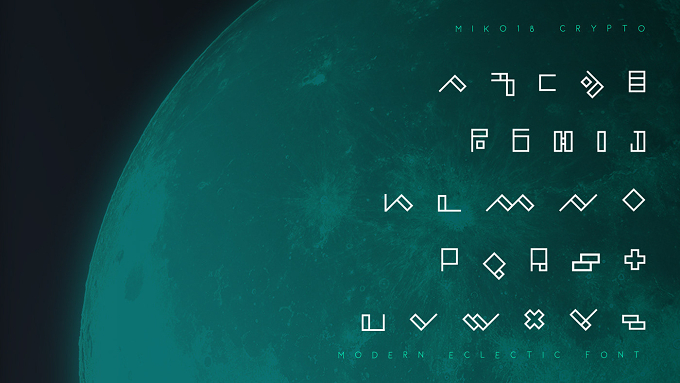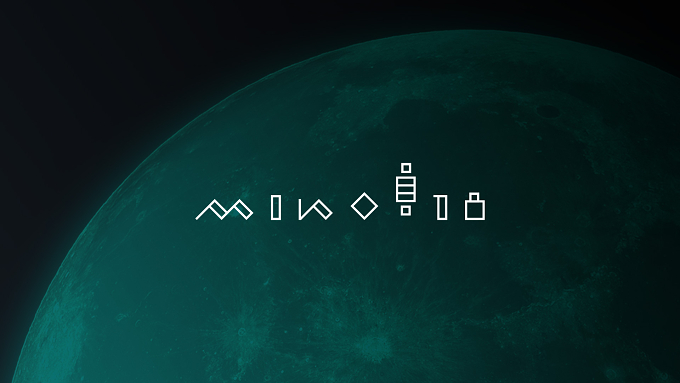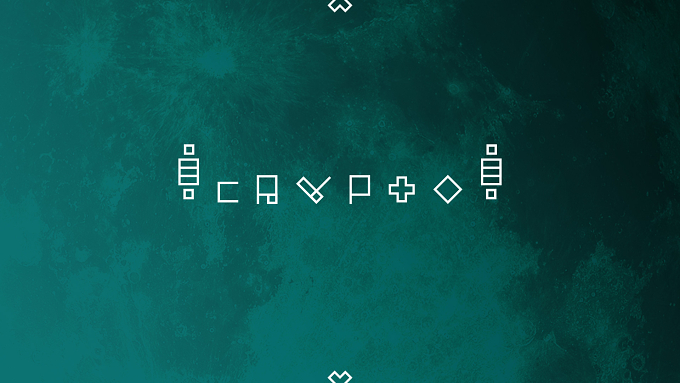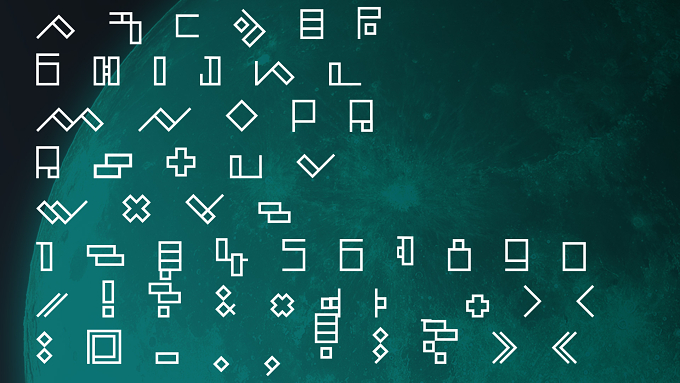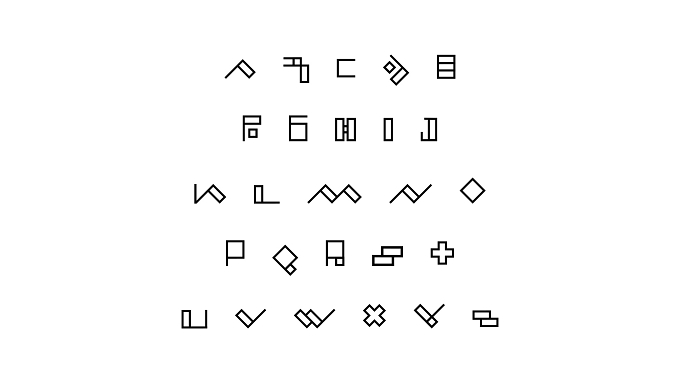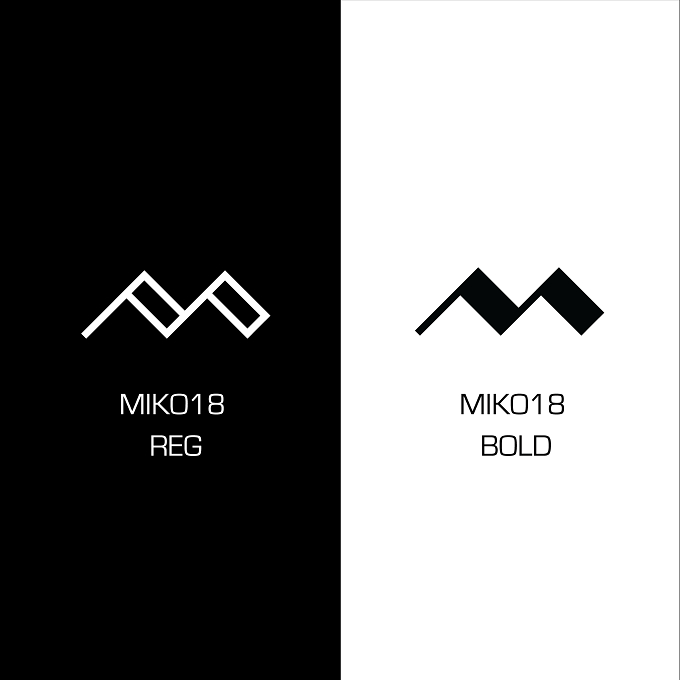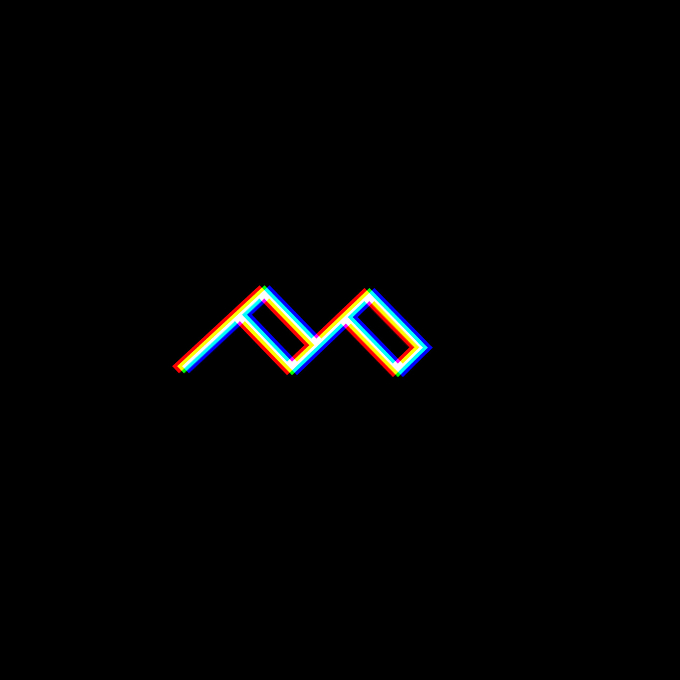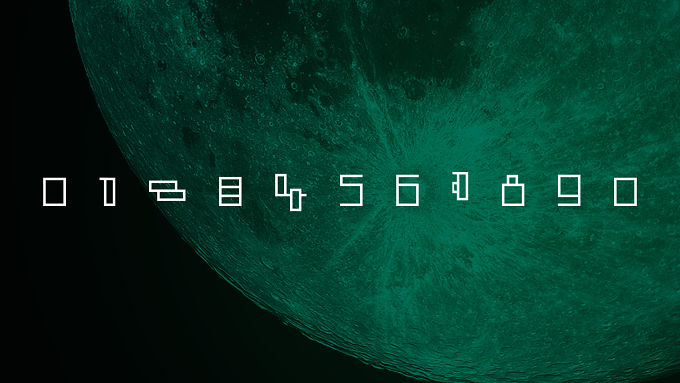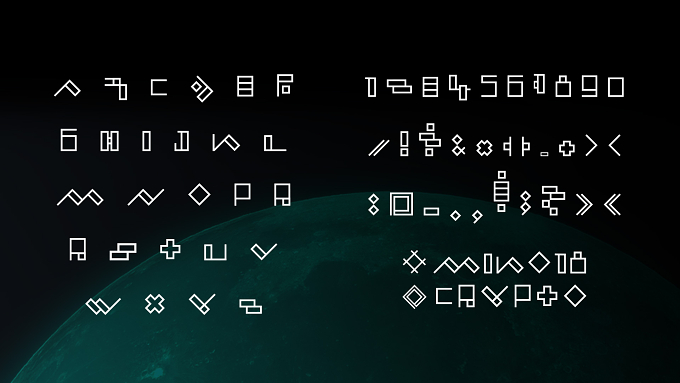
Second font from #Miko18 family, CRYPTO
It's more casual and straighten version of old good NEOFOLK font, still eclectic, more #electronic rhythm and vibe.